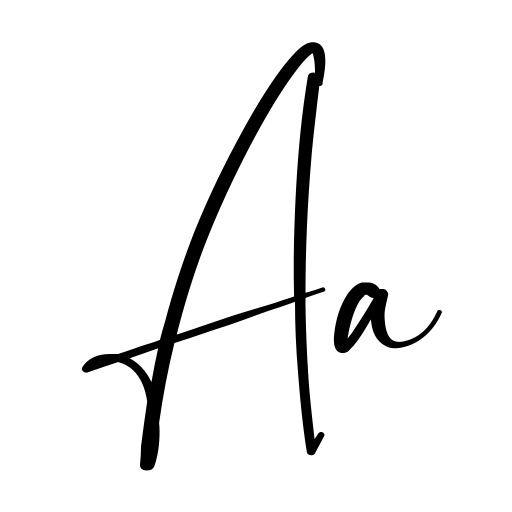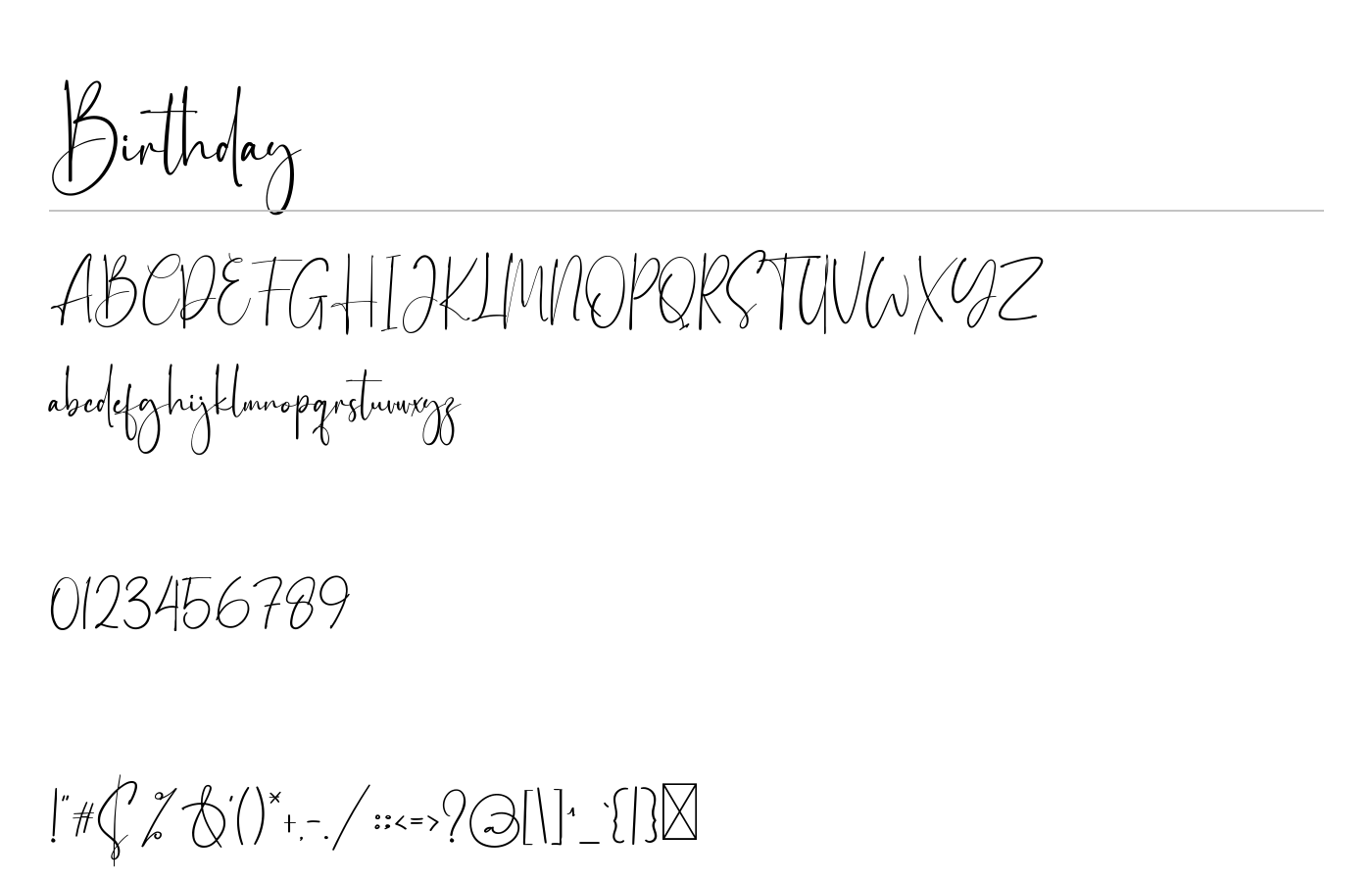
Birthday Font is a delicate, handwritten script with slender, elegant strokes and a playful, airy feel. Its tall, narrow letterforms and fine lines give it a charming, personal touch, making it perfect for invitations, greeting cards, and creative branding where a warm, intimate vibe is desired. This font works beautifully in designs that seek a casual yet refined handwritten look.
Birthday Font
About Birthday Font